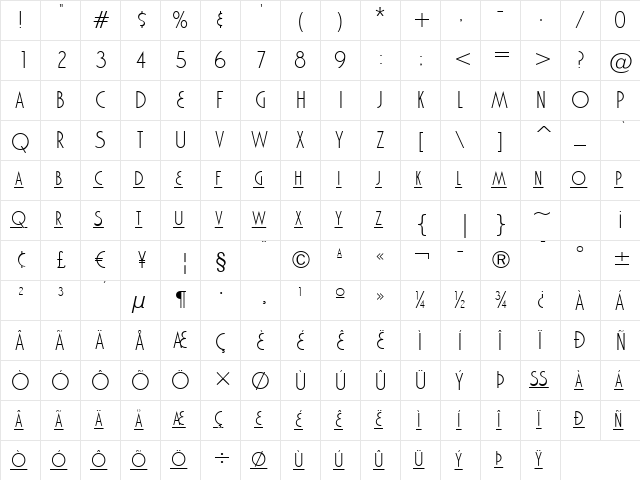
Marquisette BTN Lined Light Regular
Design Context for Marquisette BTN Lined Light Typeface
Marquisette BTN Lined Light is a composed and adaptable typeface that performs quietly and consistently across a wide range of design contexts. Its slender proportions lend an understated elegance to any composition.
Pro Tip: Use Marquisette BTN Lined Light in both headline and body roles to test its range before committing to a single application.